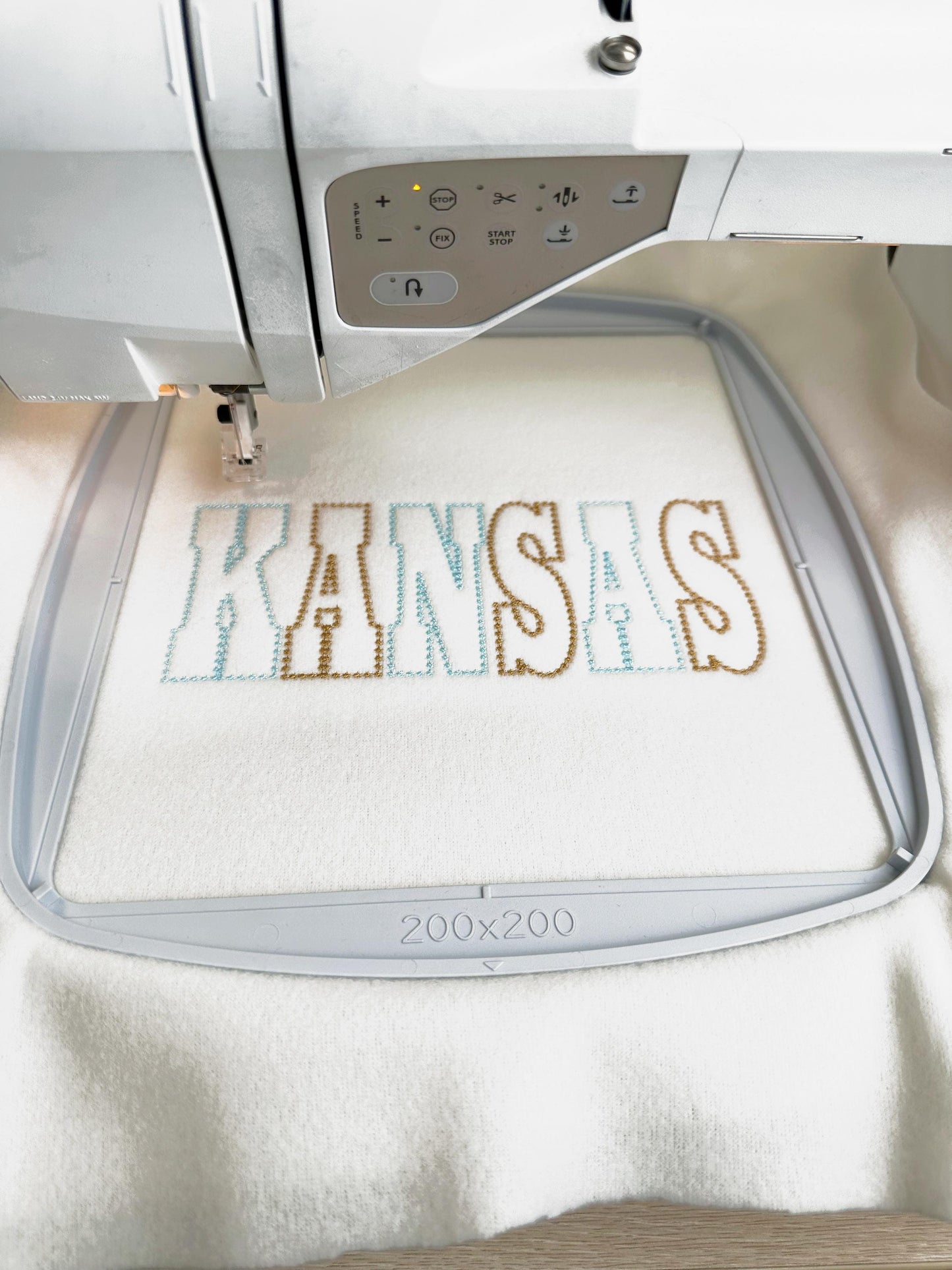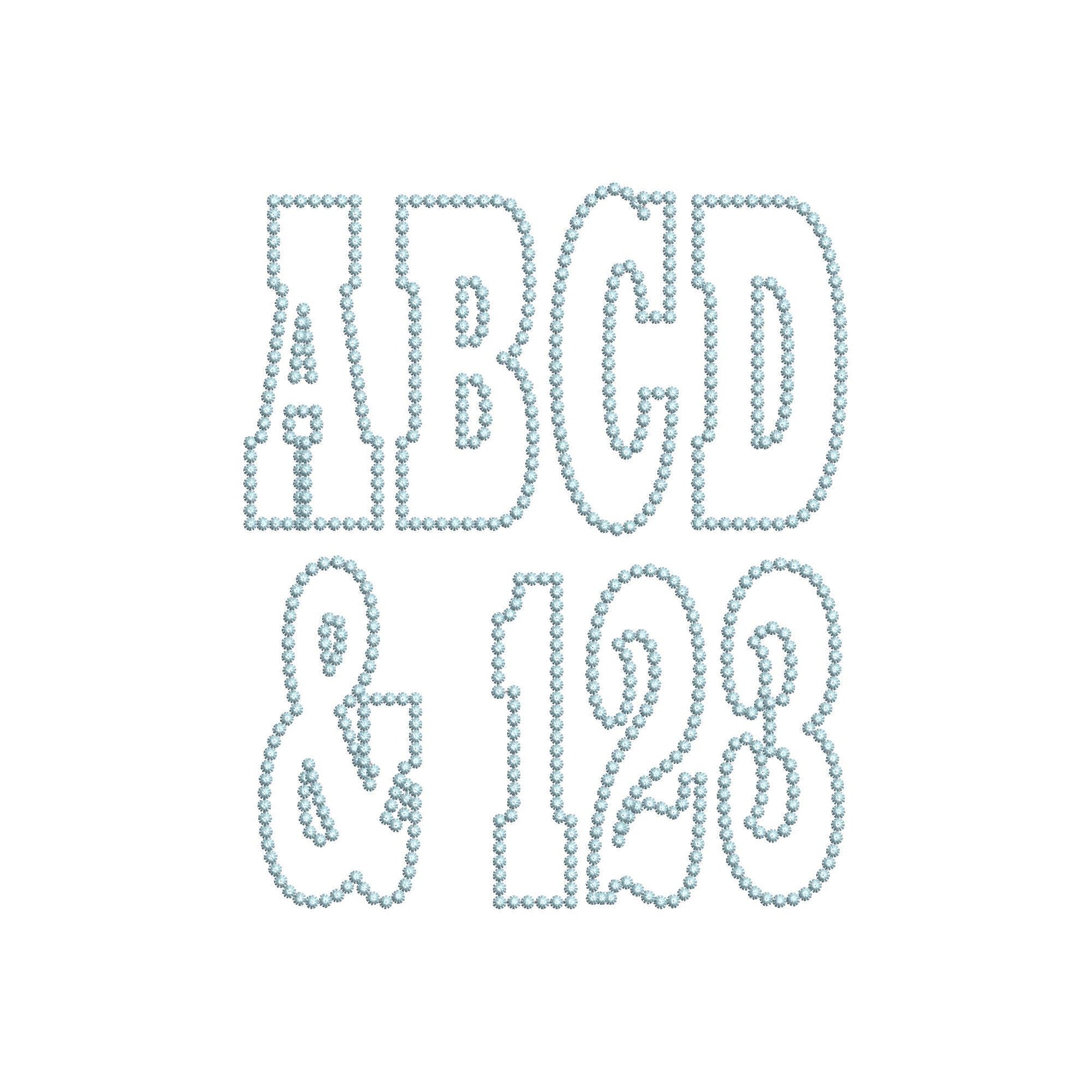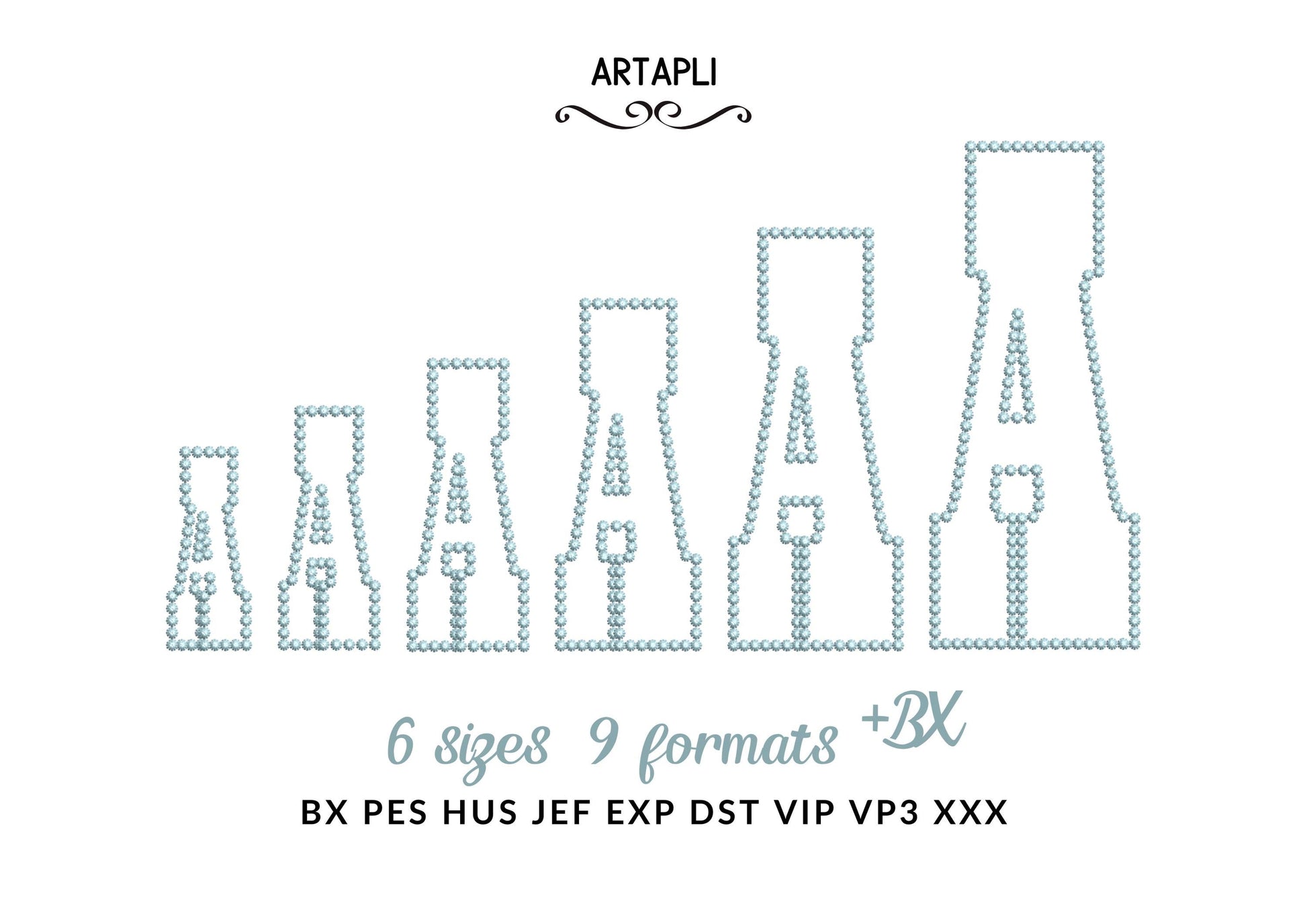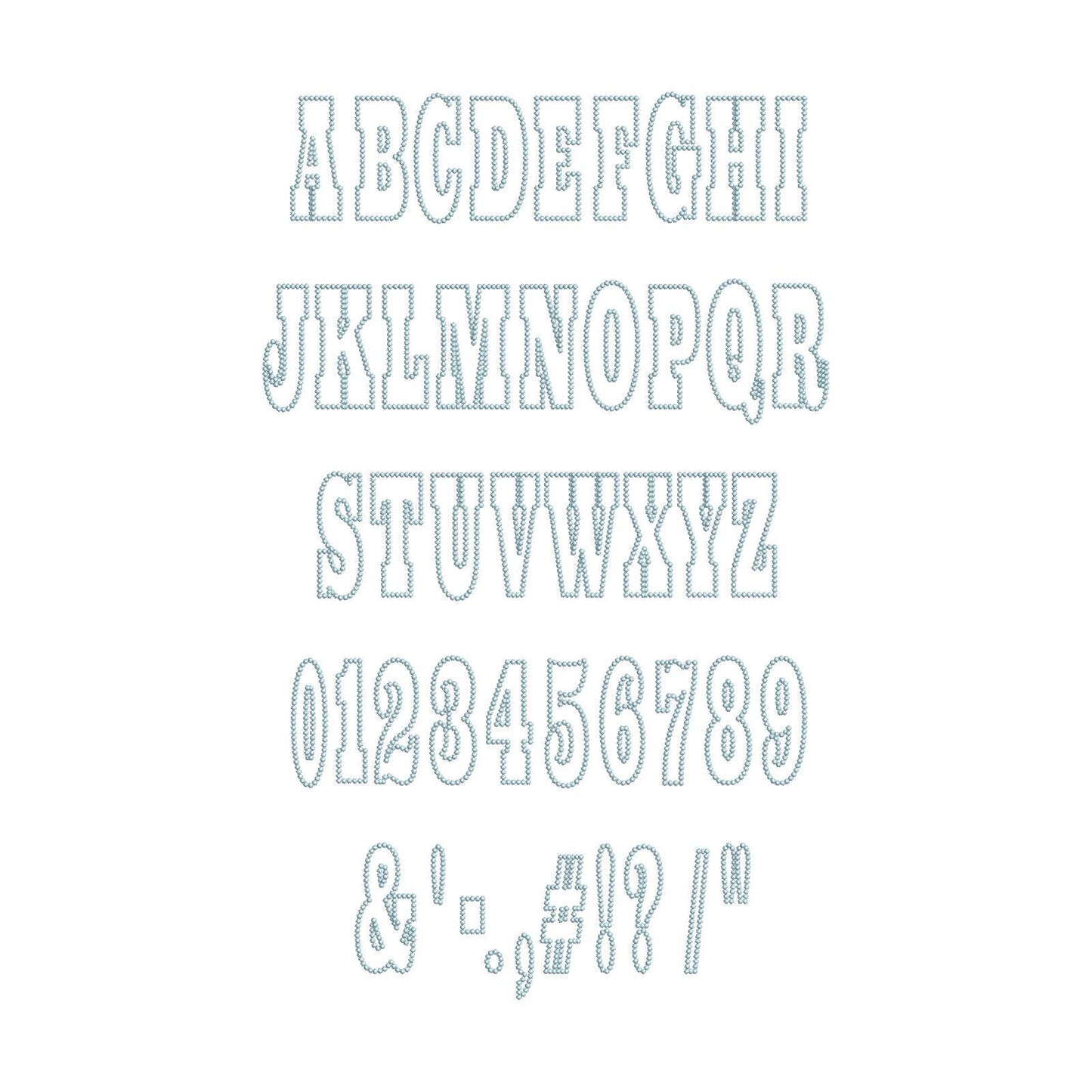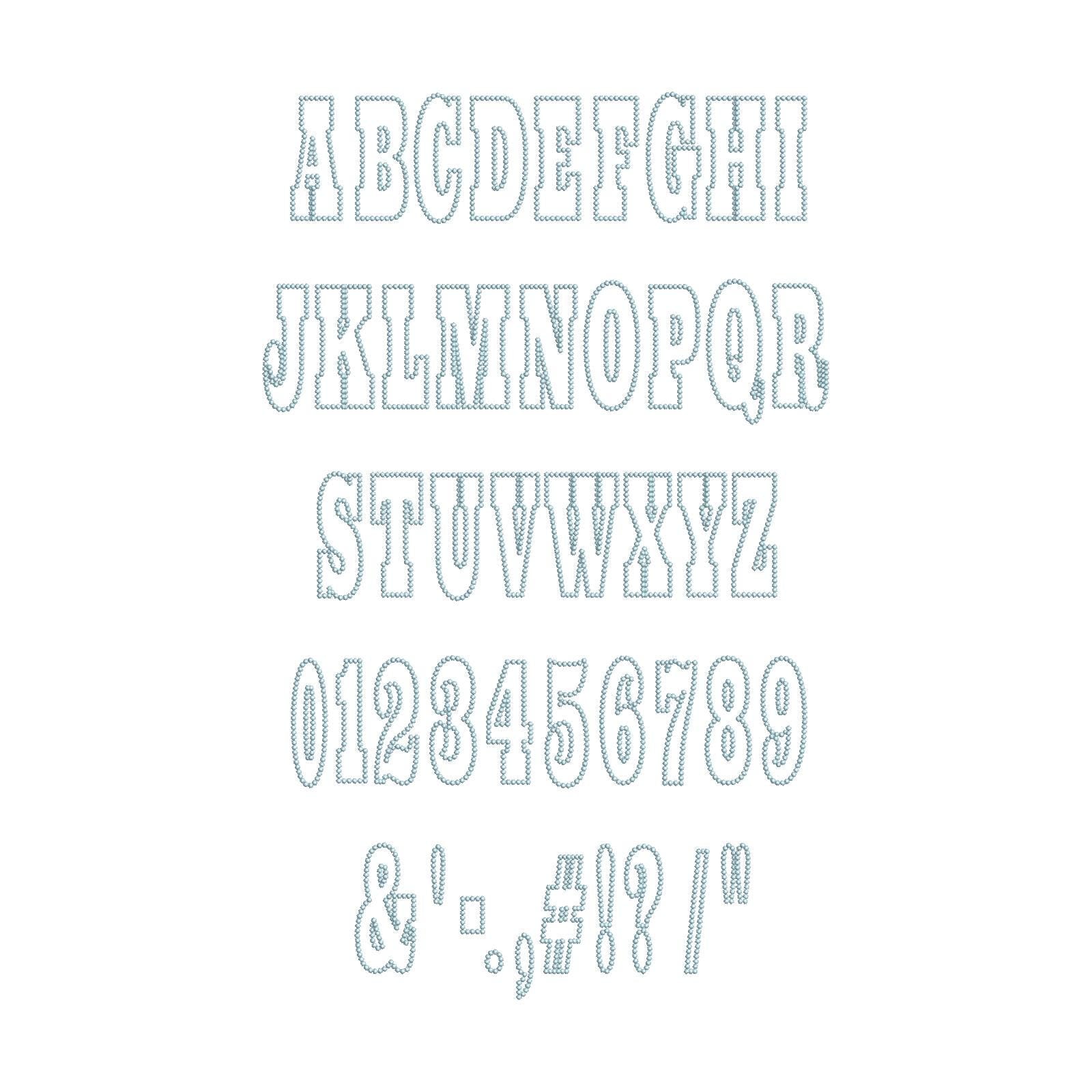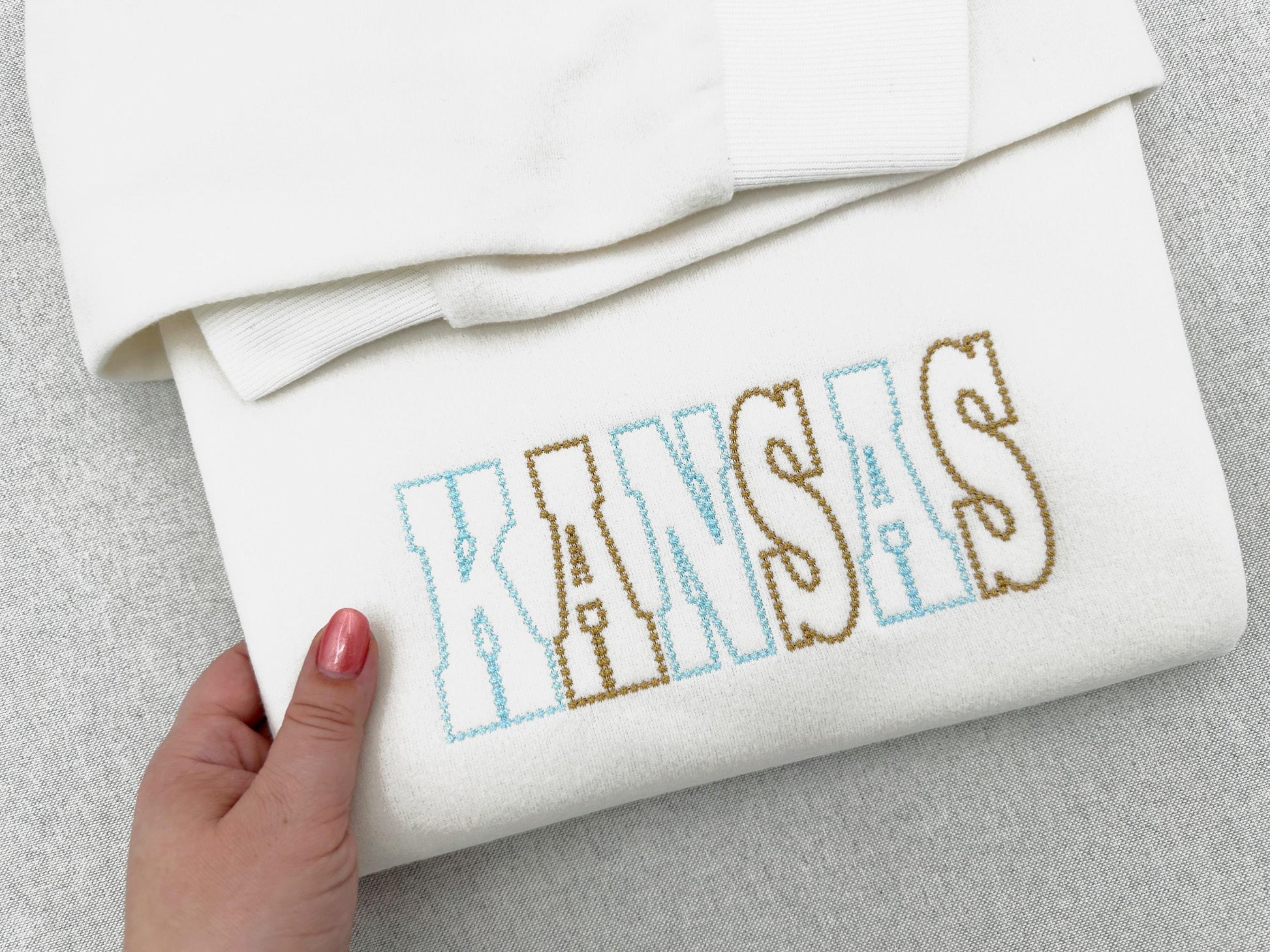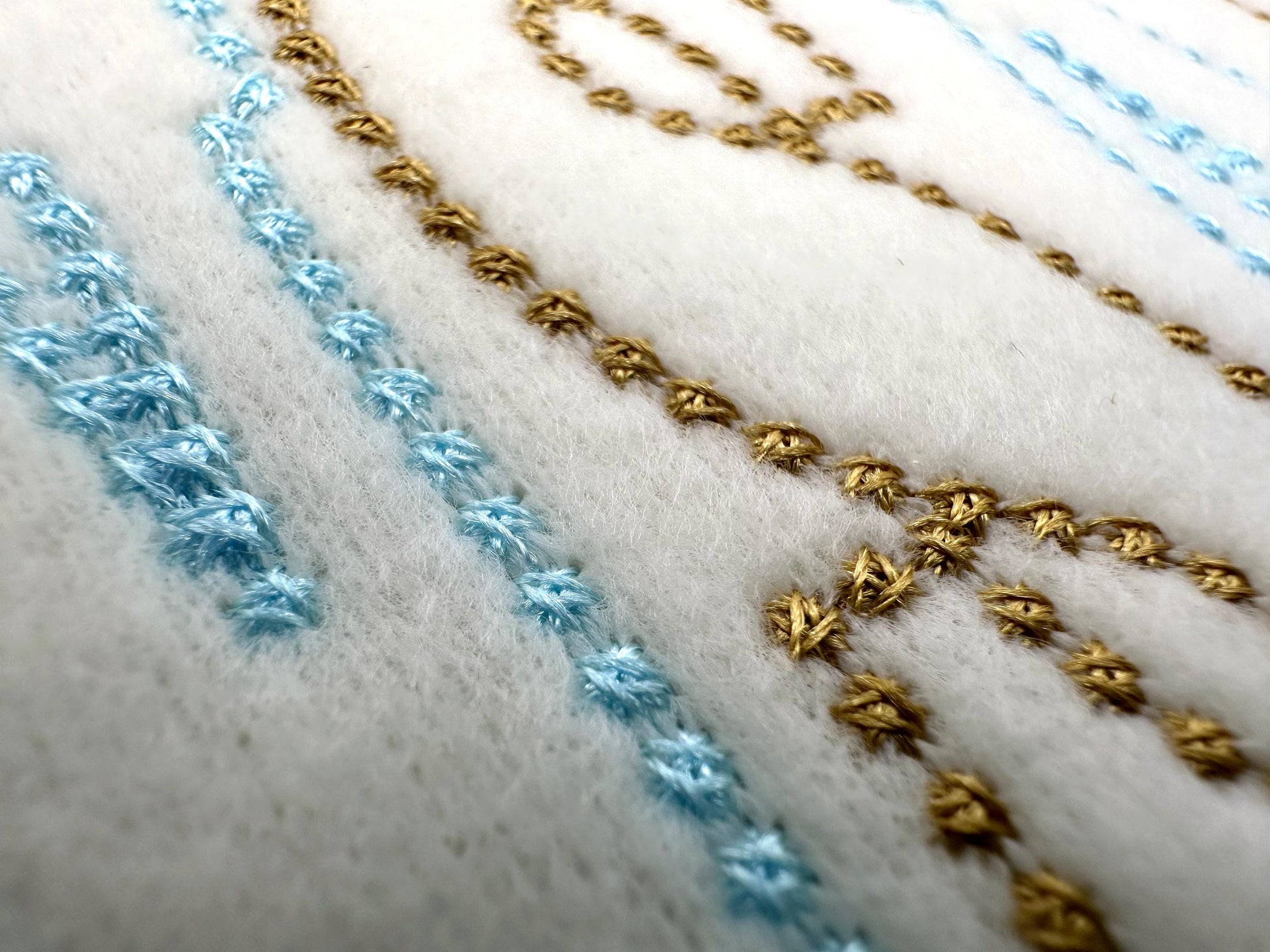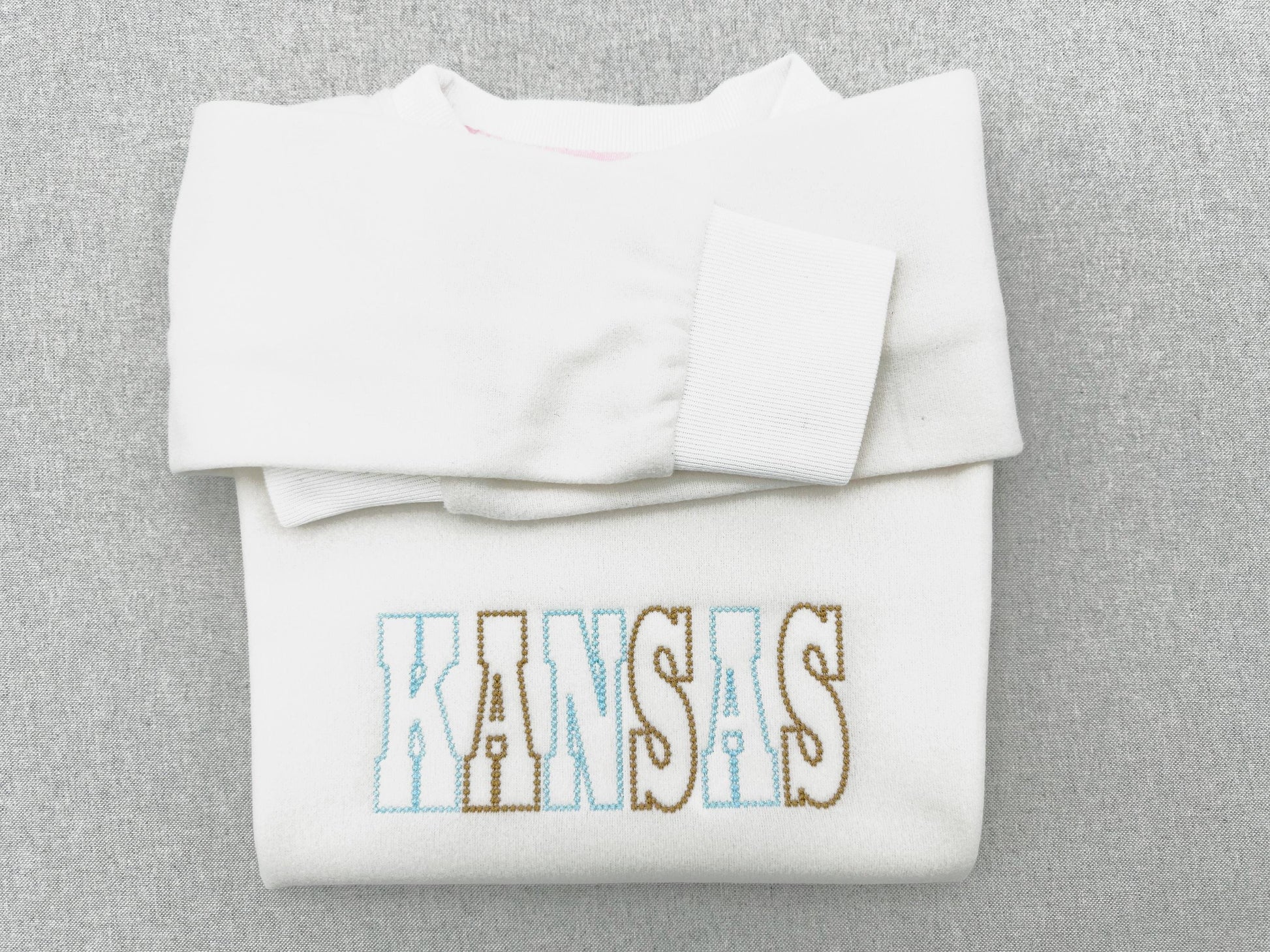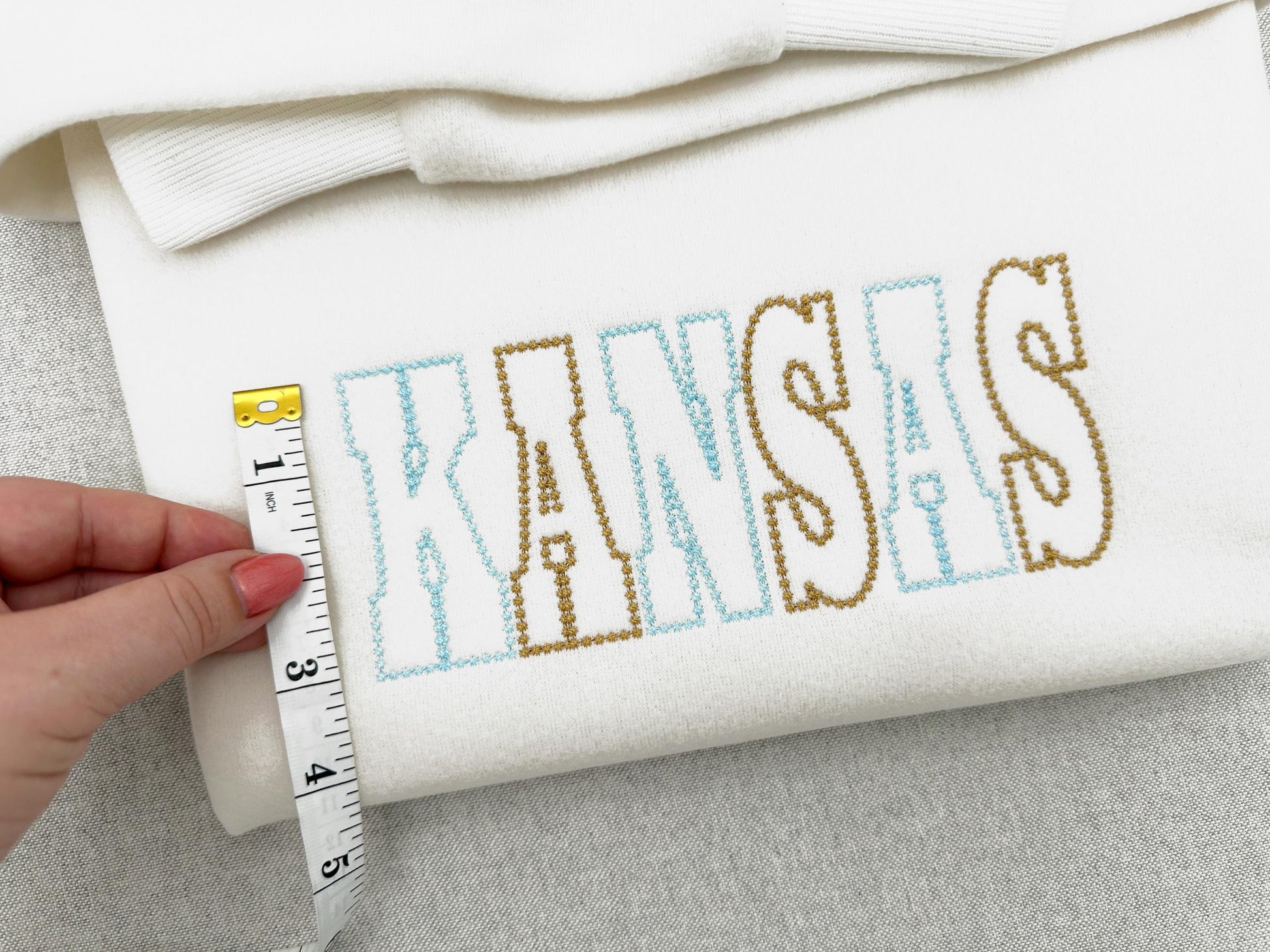
Or click to open the linkA tall, ultra narrow western-style applique font with a pearl stitch outline. Great for names and words on shirts, sweatshirts, bags and pillows.
The letters come in six sizes: 2.1, 2.5, 3, 3.6, 4.3 and 5.1 inches. Includes uppercase letters A-Z, numbers 0-9 and punctuation.